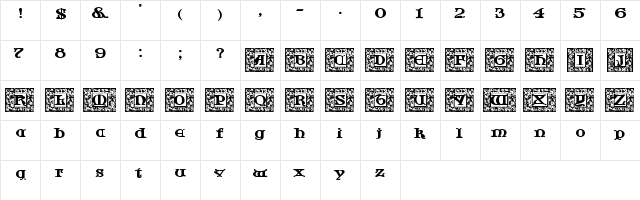
JF Cotswold Leaves Regular
Design Context for JF Cotswold Leaves Typeface
JF Cotswold Leaves is a composed and adaptable typeface that performs quietly and consistently across a wide range of design contexts.